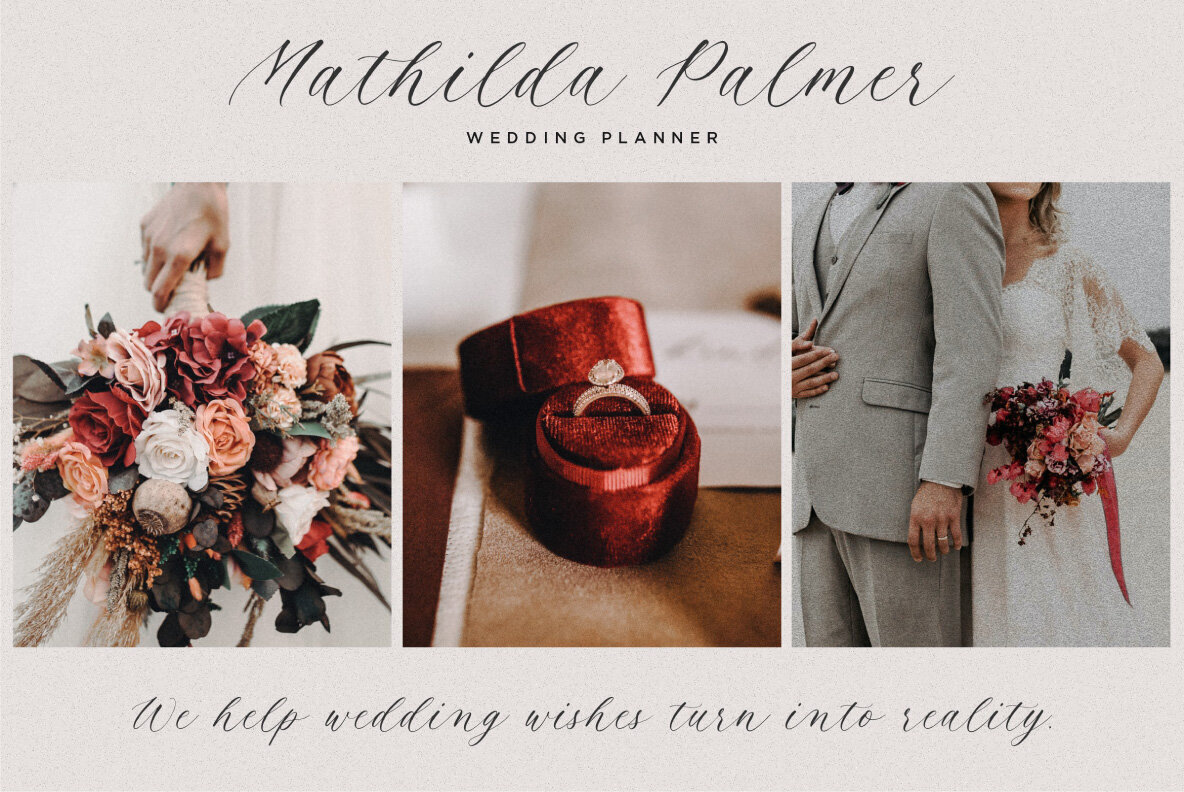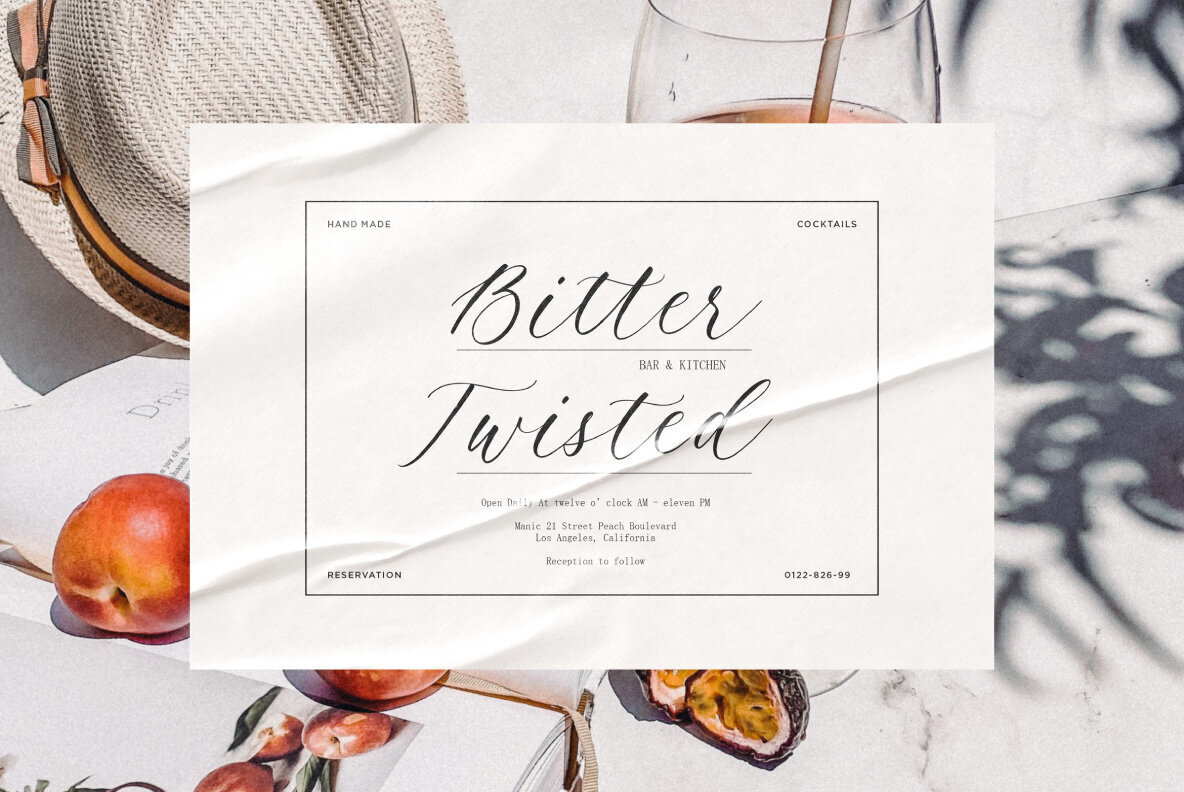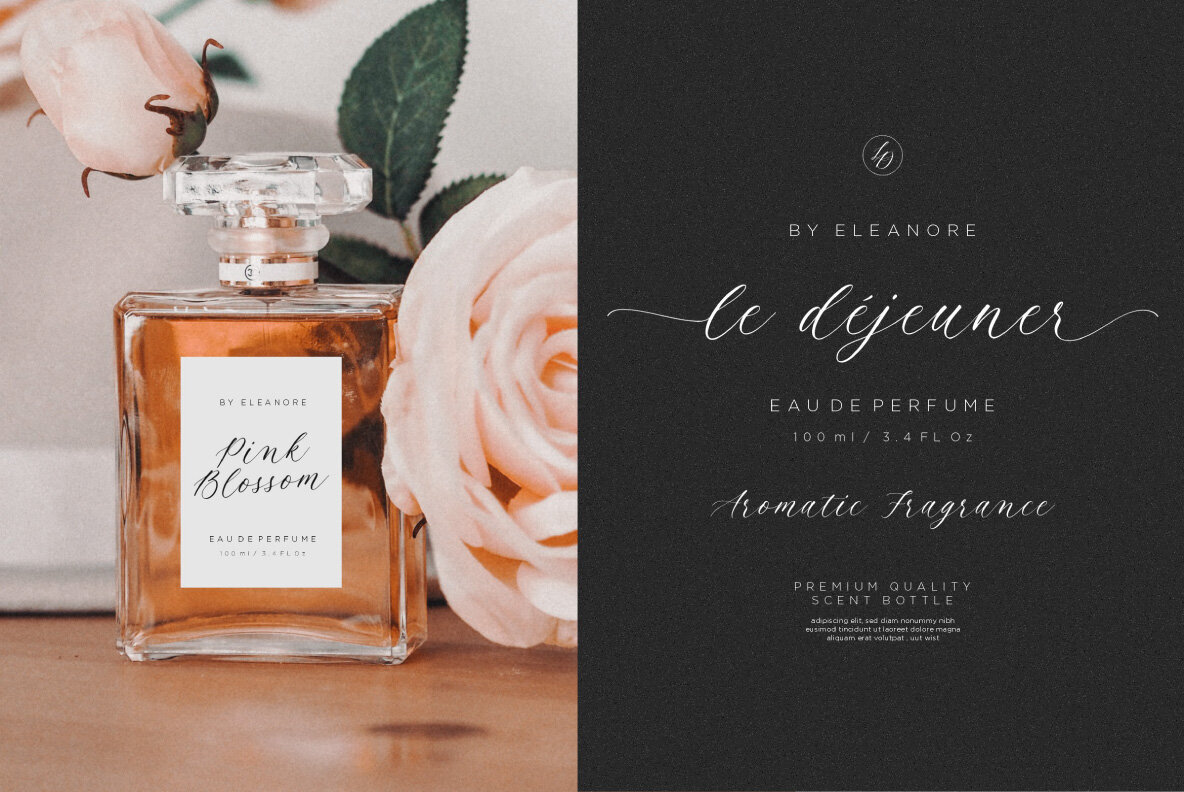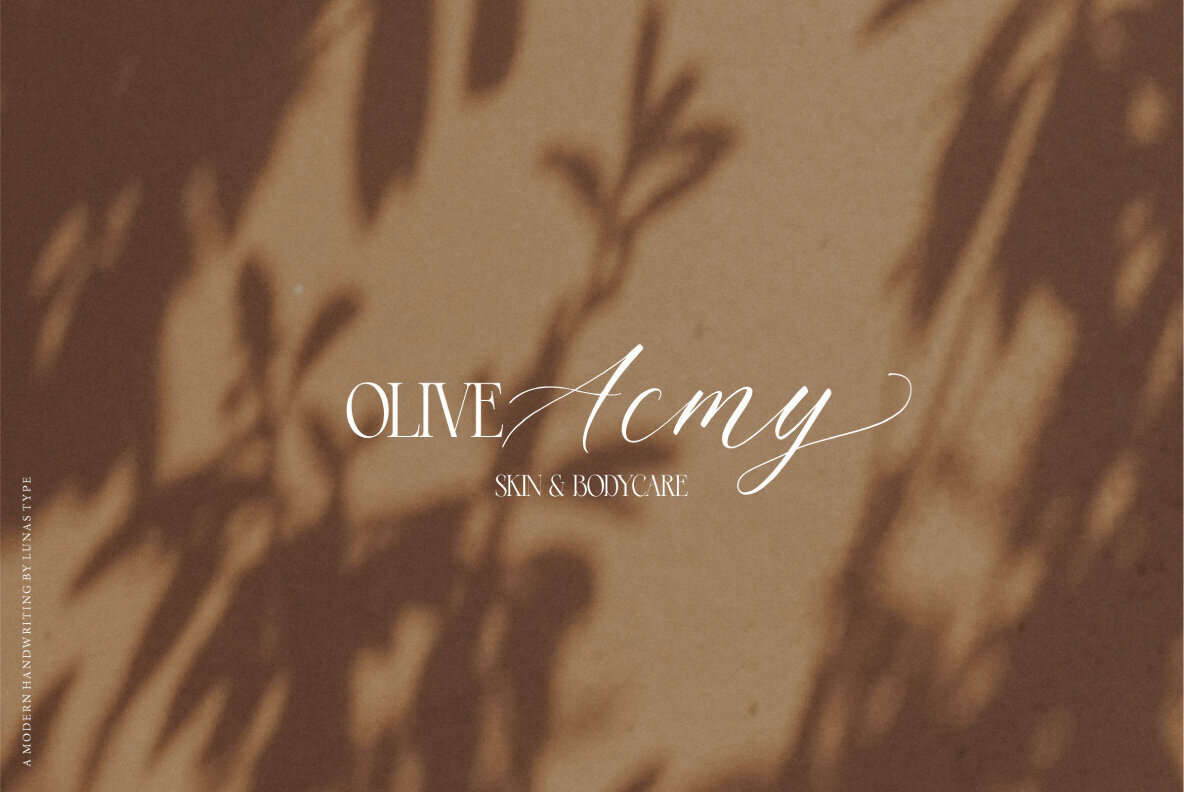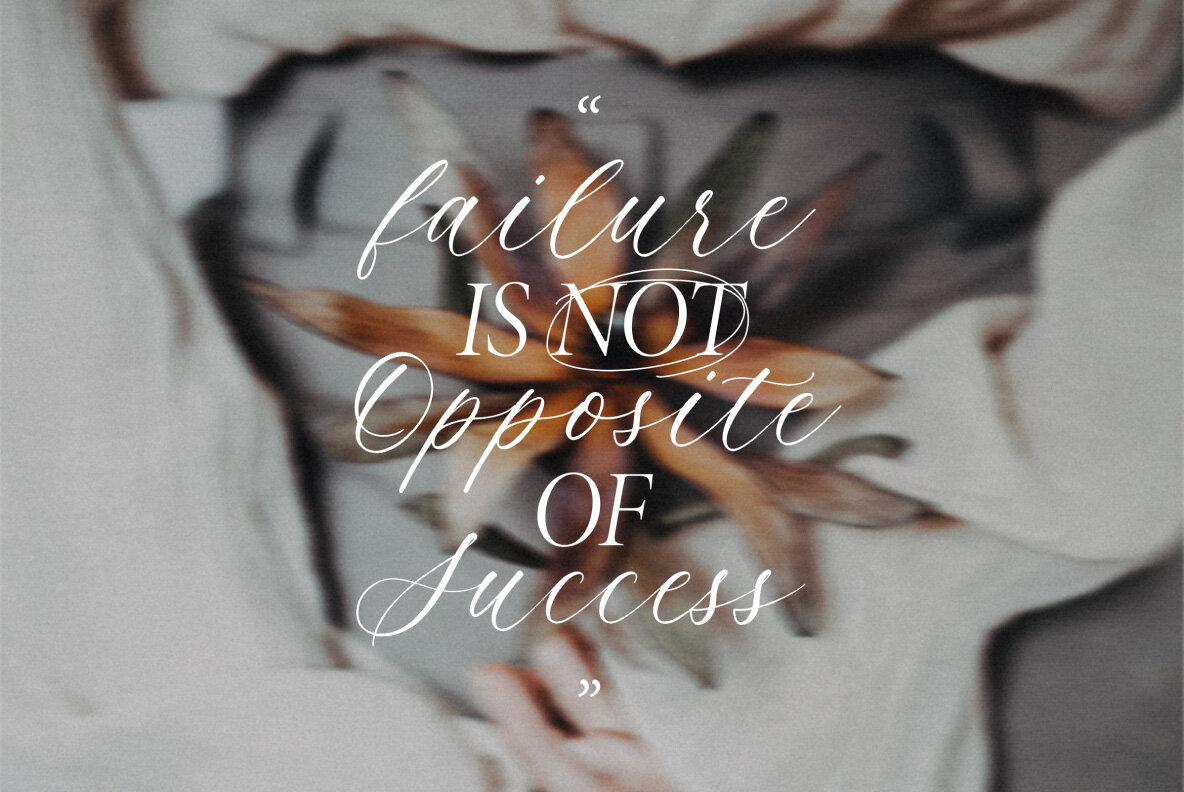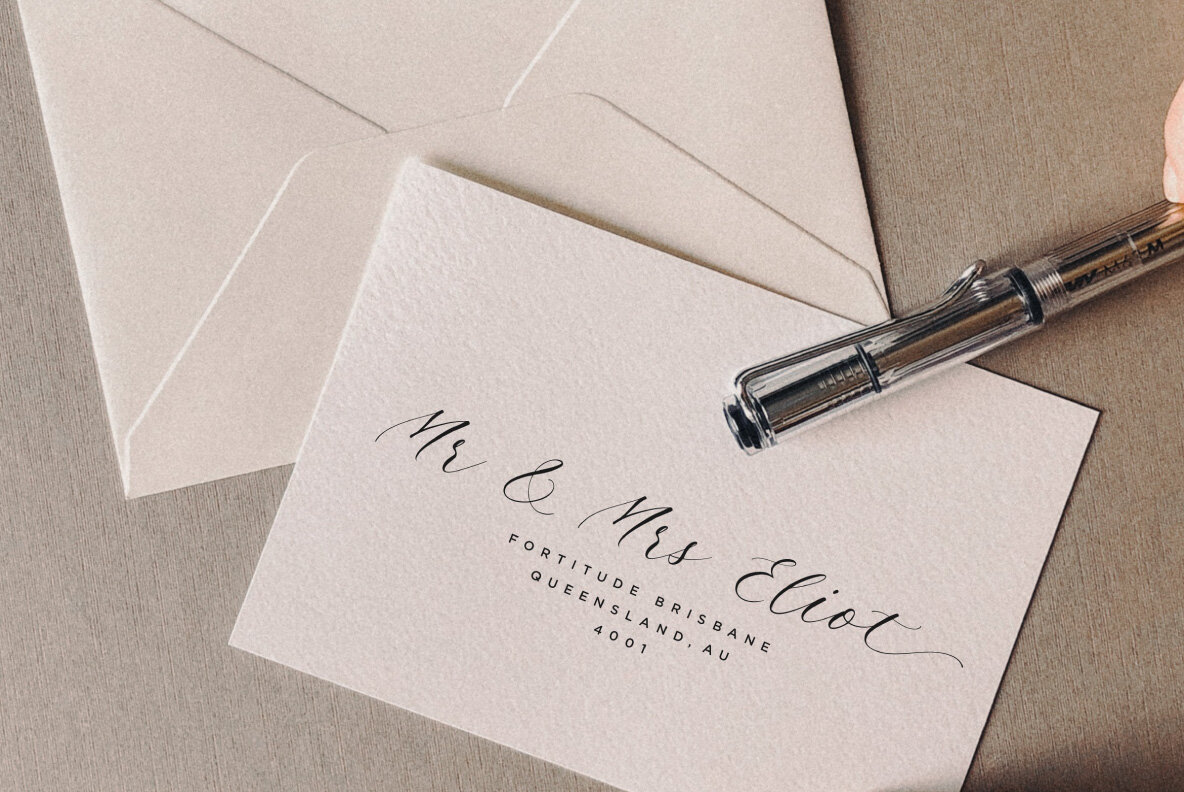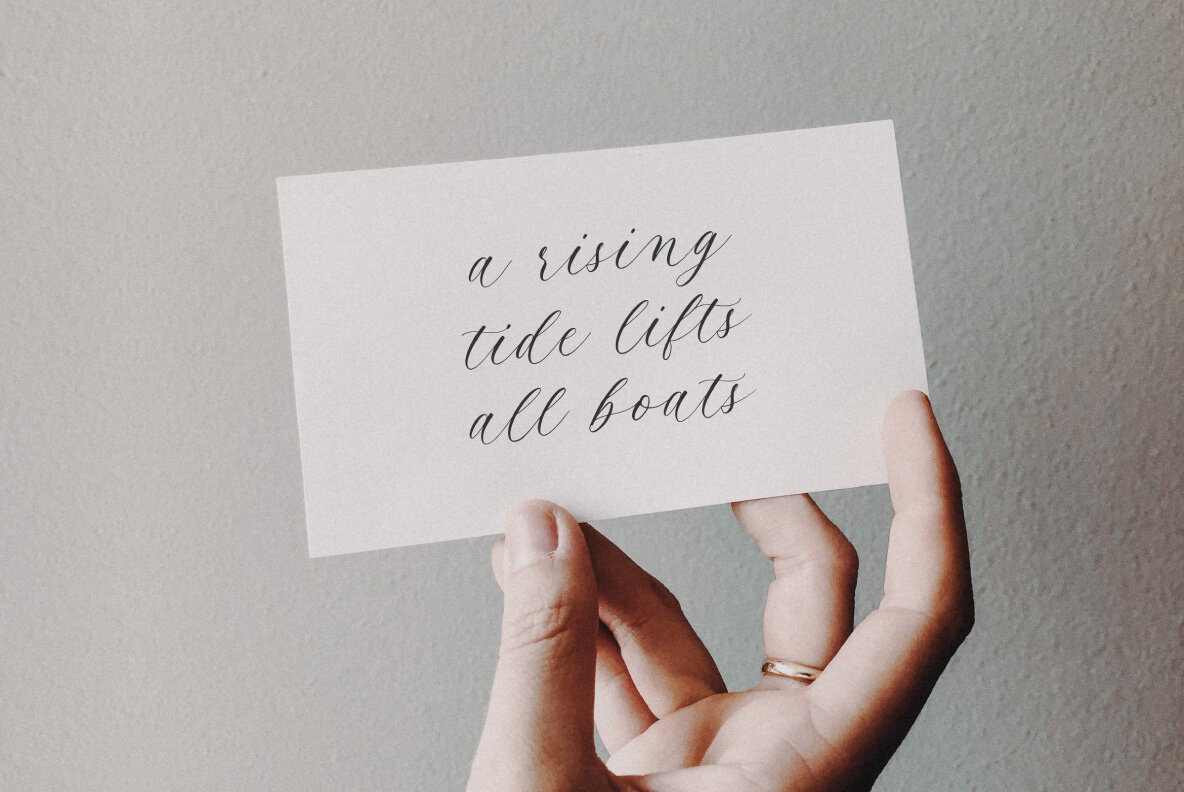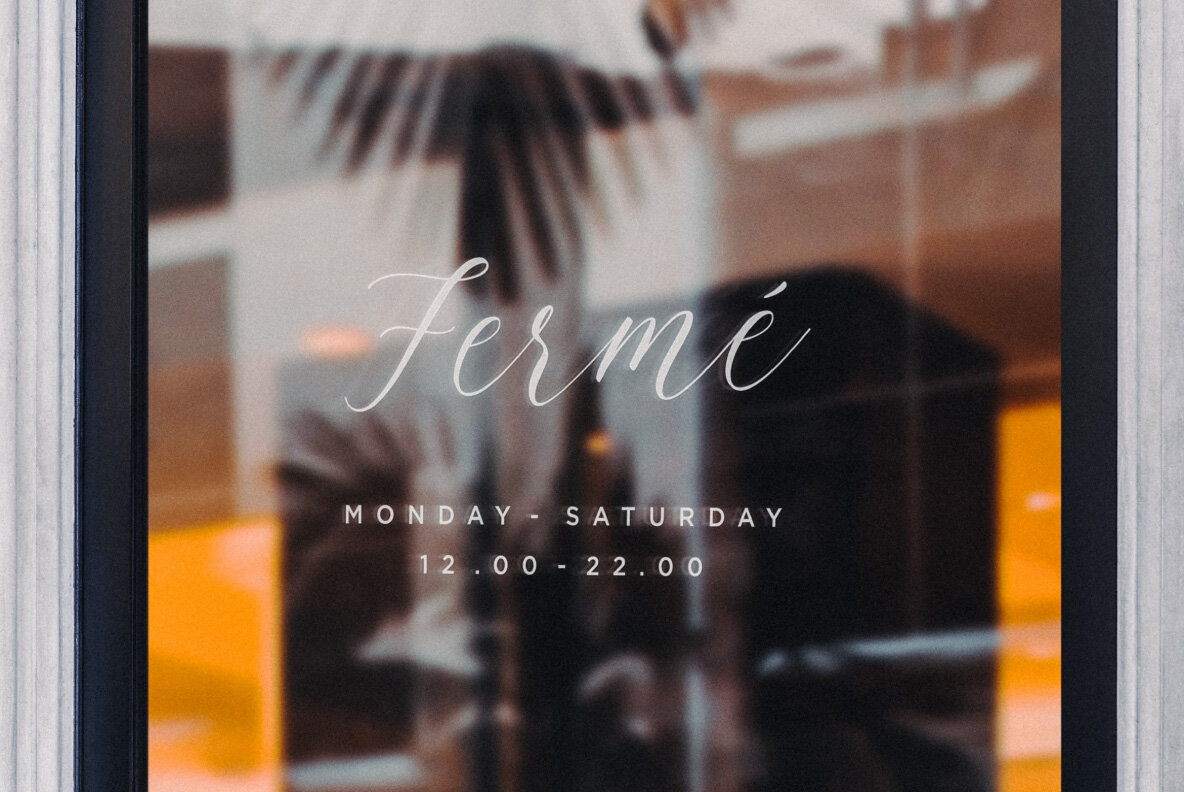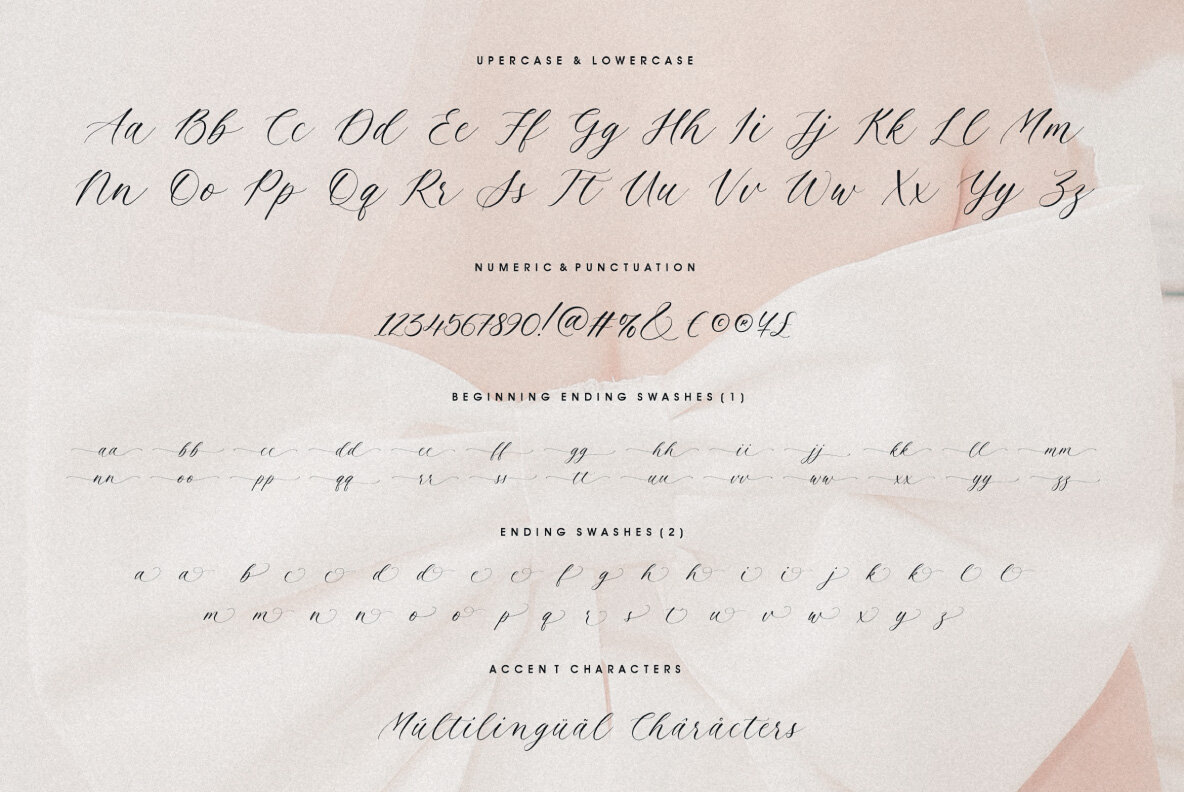
Beloved Sandra Font
Beloved Sandra Regular
Introducing Beloved Sandra, the modern and luxury calligraphy font that will add charm and impression to your design! Beloved Sandra is perfect for many design needs such as merch, T-shirts, signature logos, weddings, book covers, social media posts, websites, events, and many more.
With her beautiful flowing lines and exquisite details, Beloved Sandra is sure to make your designs stand out from the crowd. So don't wait any longer, add some elegance to your designs with Beloved Sandra today!